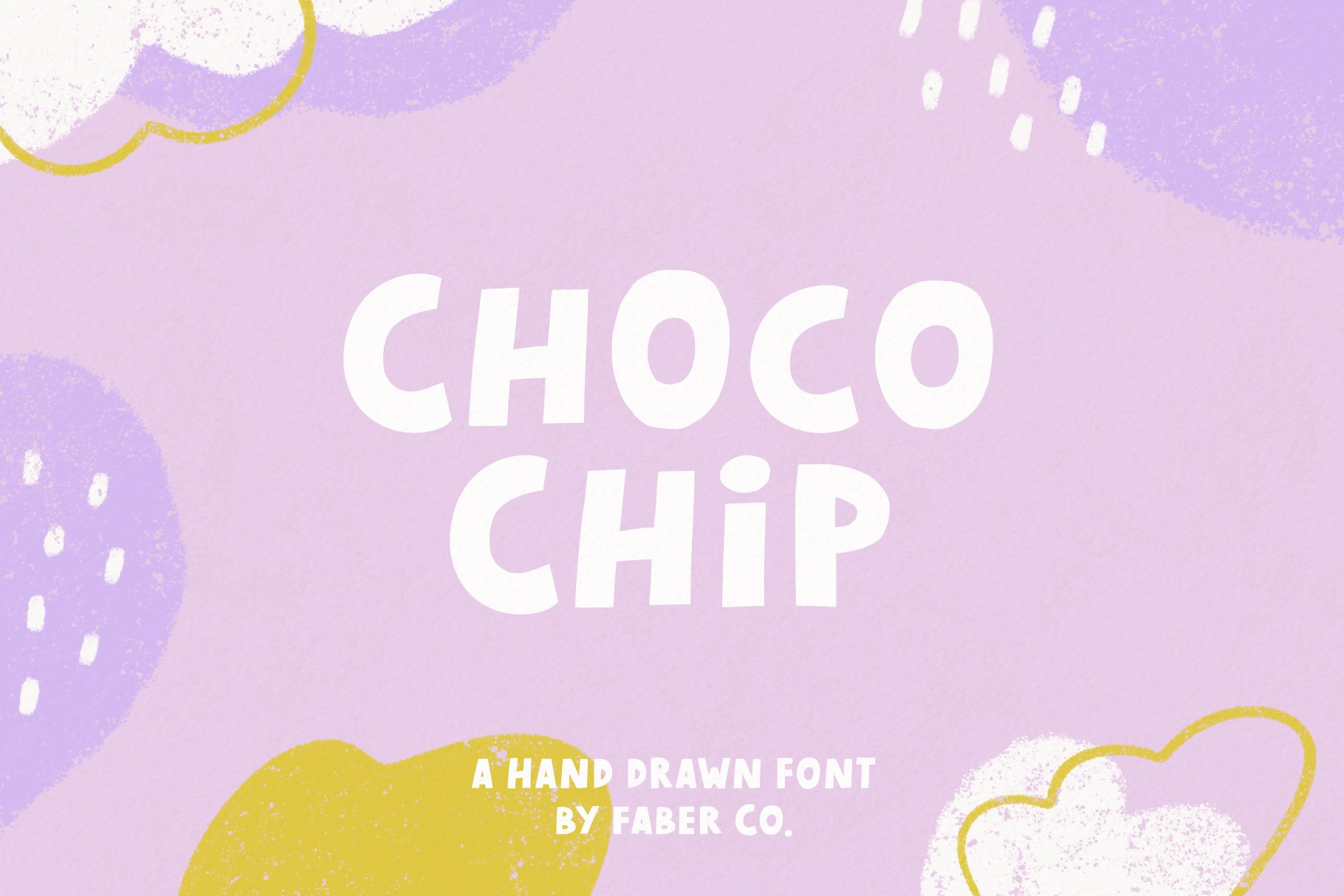
CHOCO CHIP is a bold and playful font in a hand-drawn style. It’s perfect to add a personal and playful touch to your illustrations, greeting cards, packaging, quotes, and much more.
This is a font with characters, punctuation, and symbols.